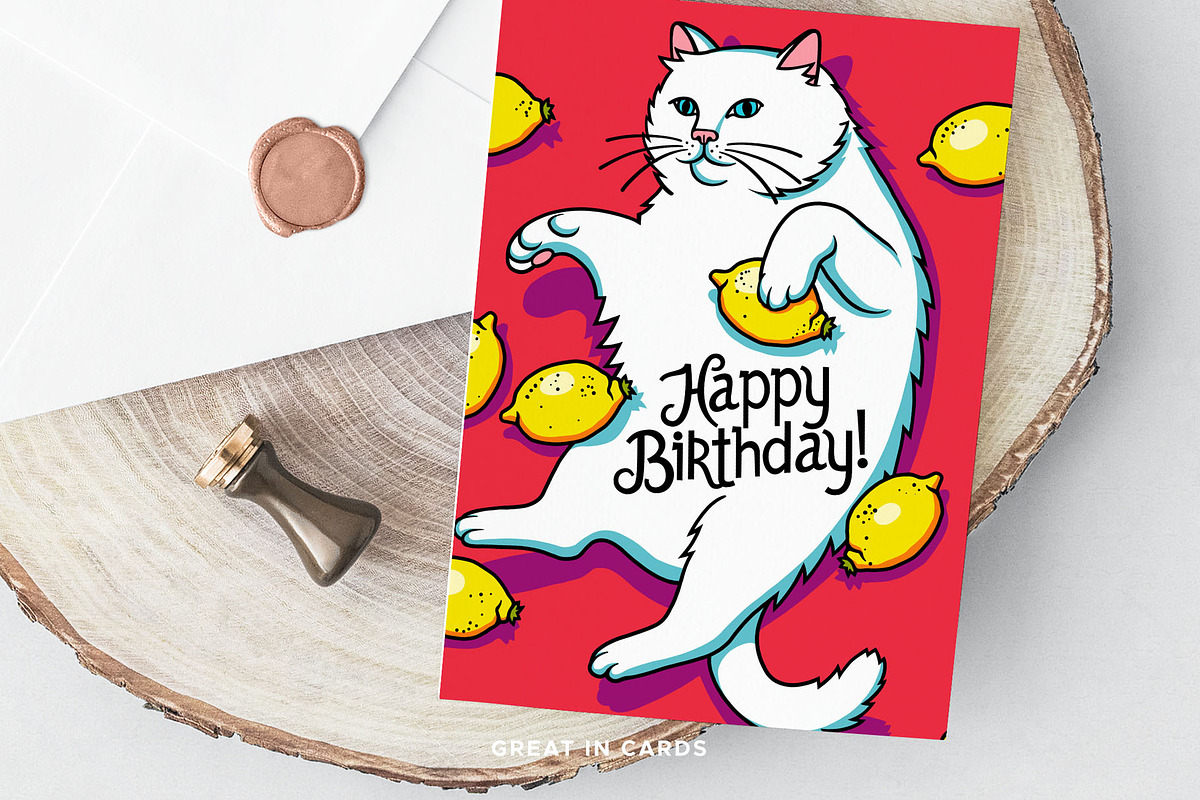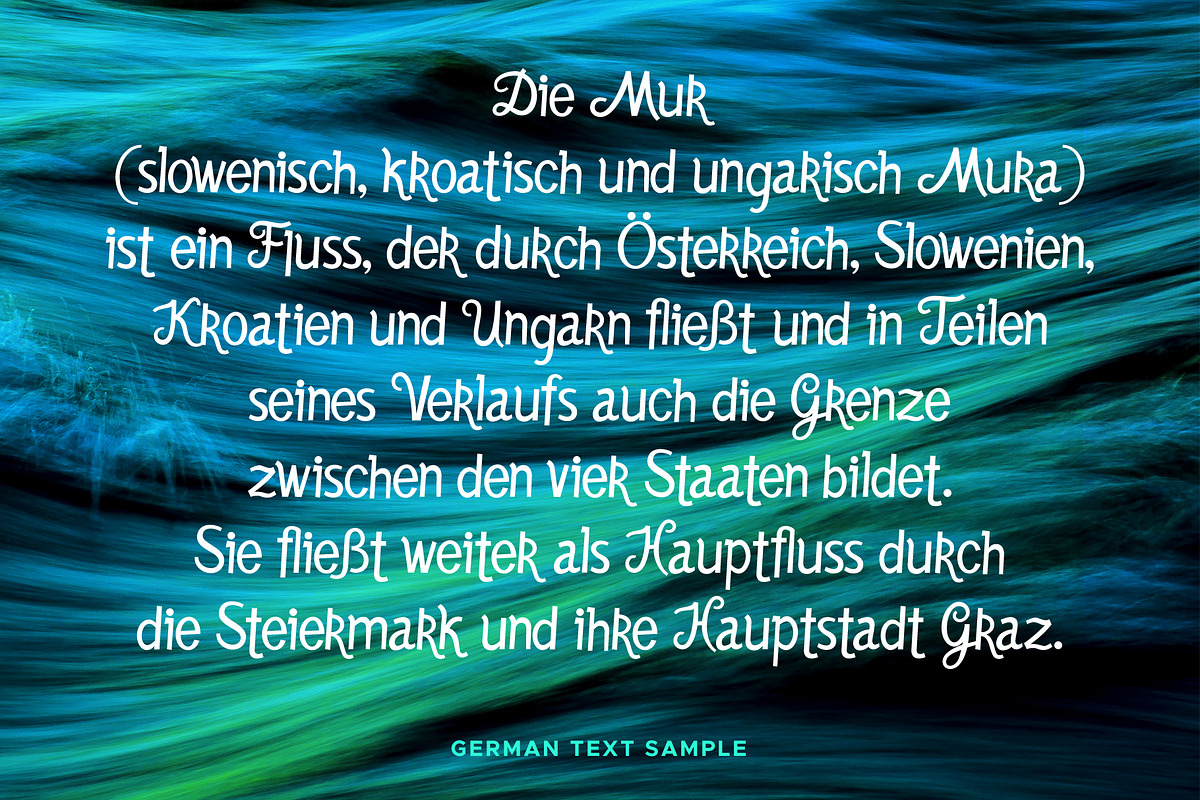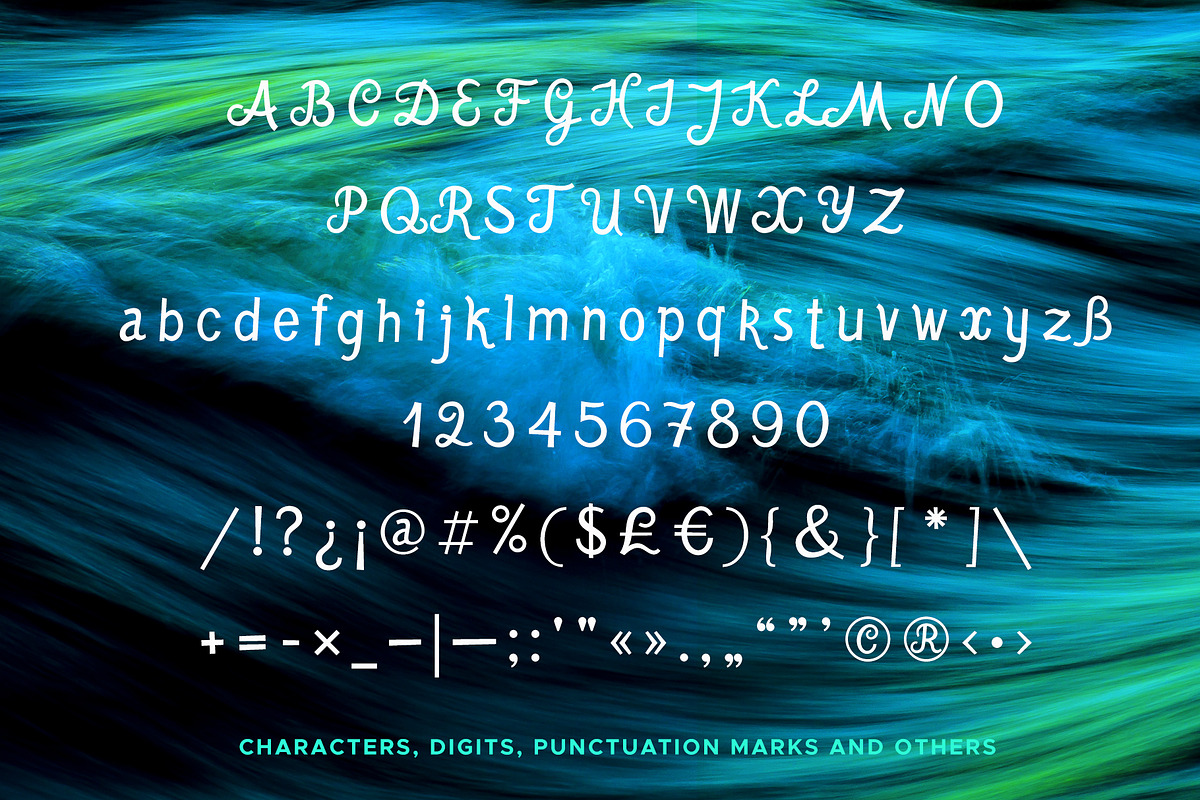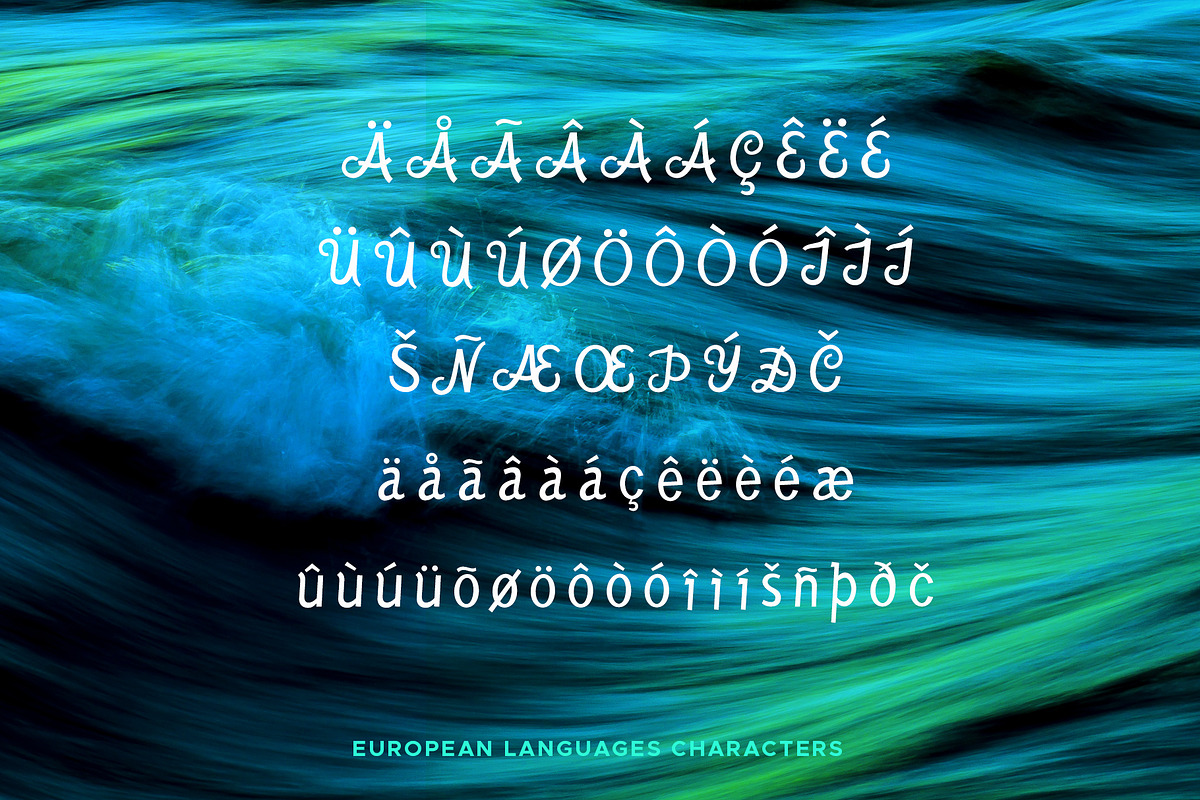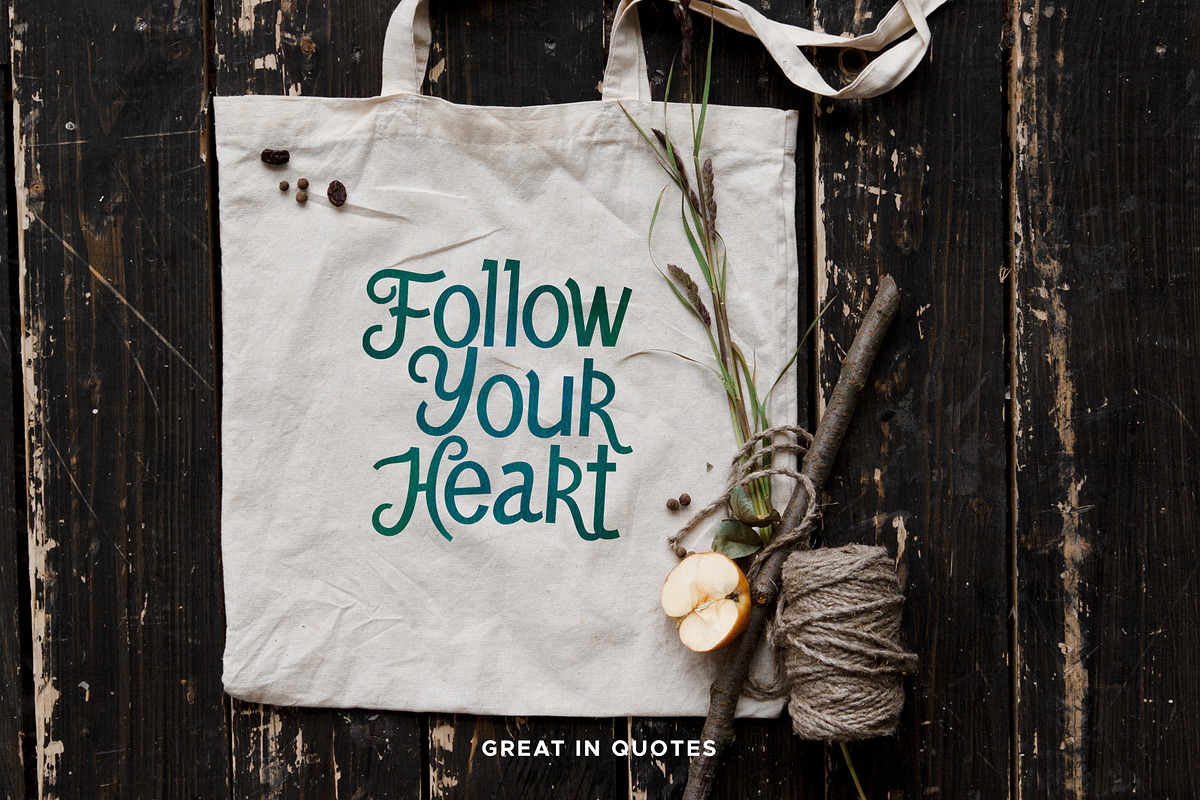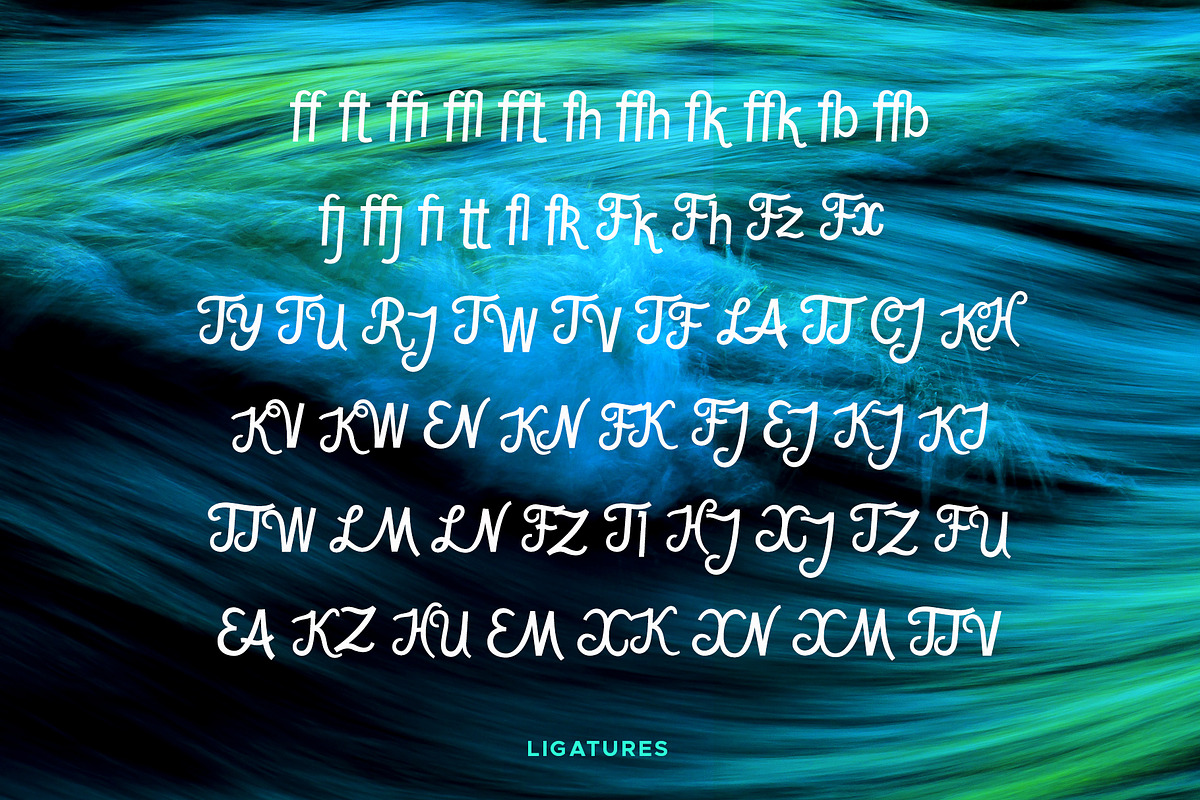
Mur Typeface
Mur is a display script typeface with all characters (uppercase and lowercase), digits, currency symbols, punctuation marks, ligatures and letters with diacritic marks (uppercase and lowercase).
Mur Typeface by Olga Begak Art & Design fits naturally into Branding, posters, packaging, typography.